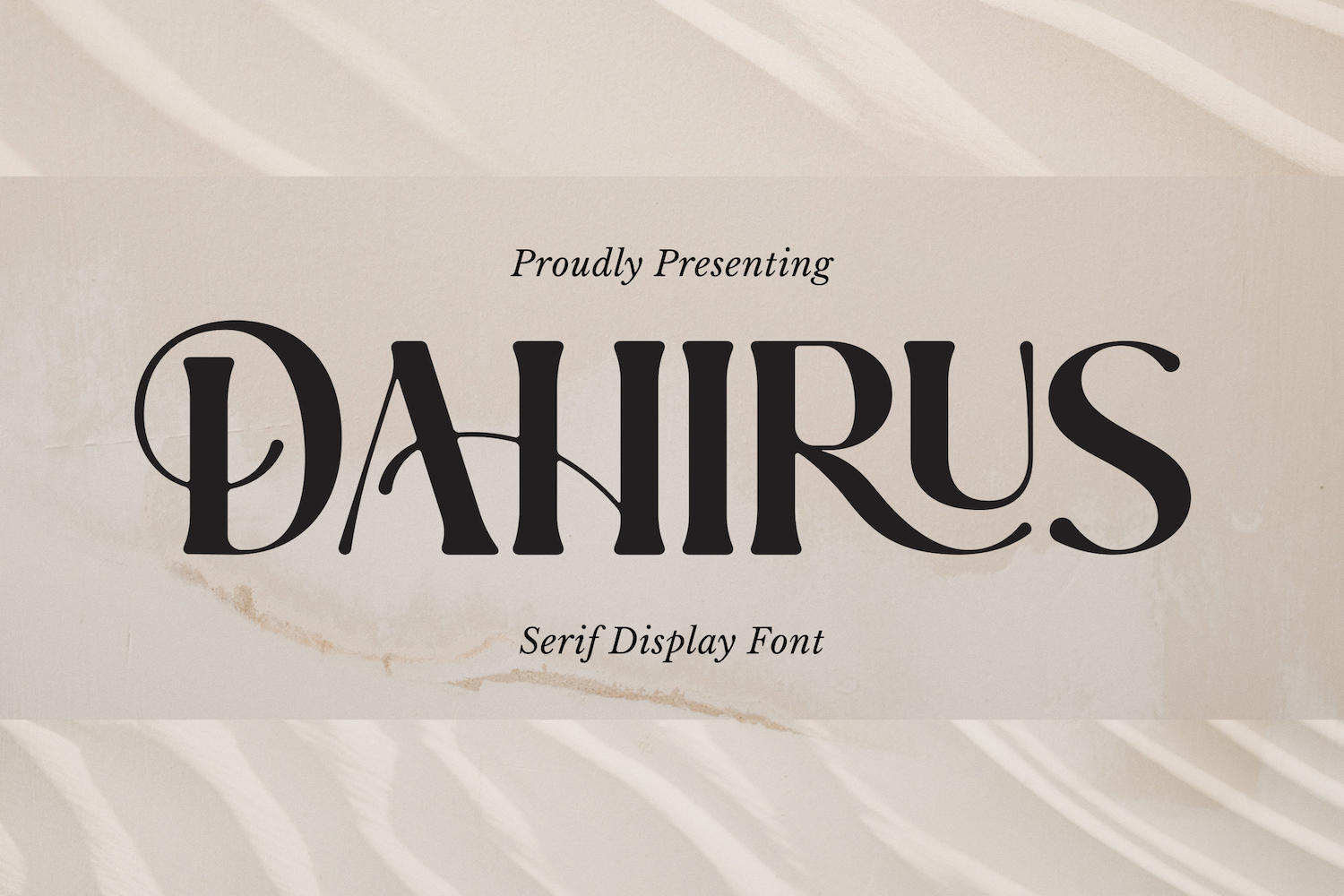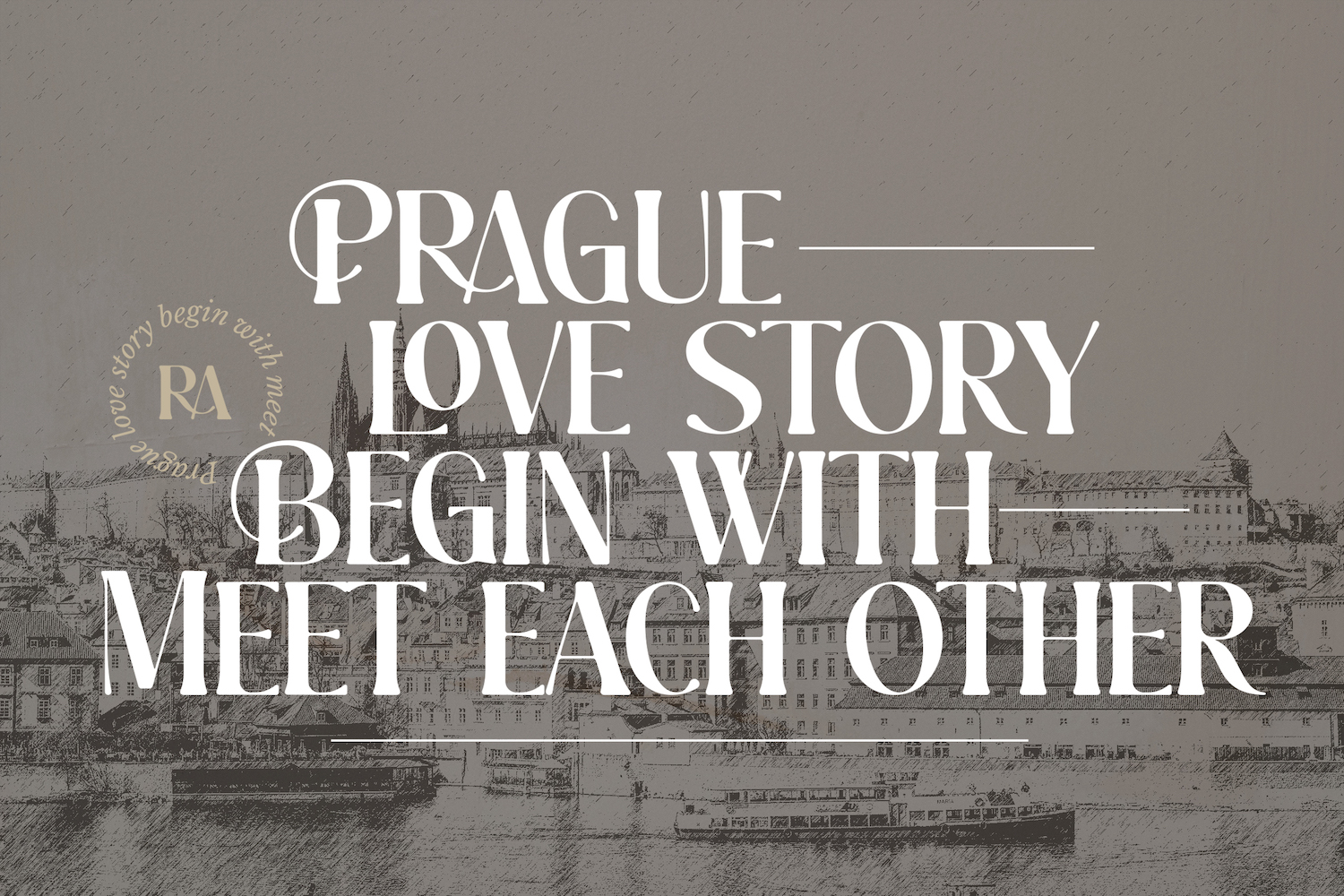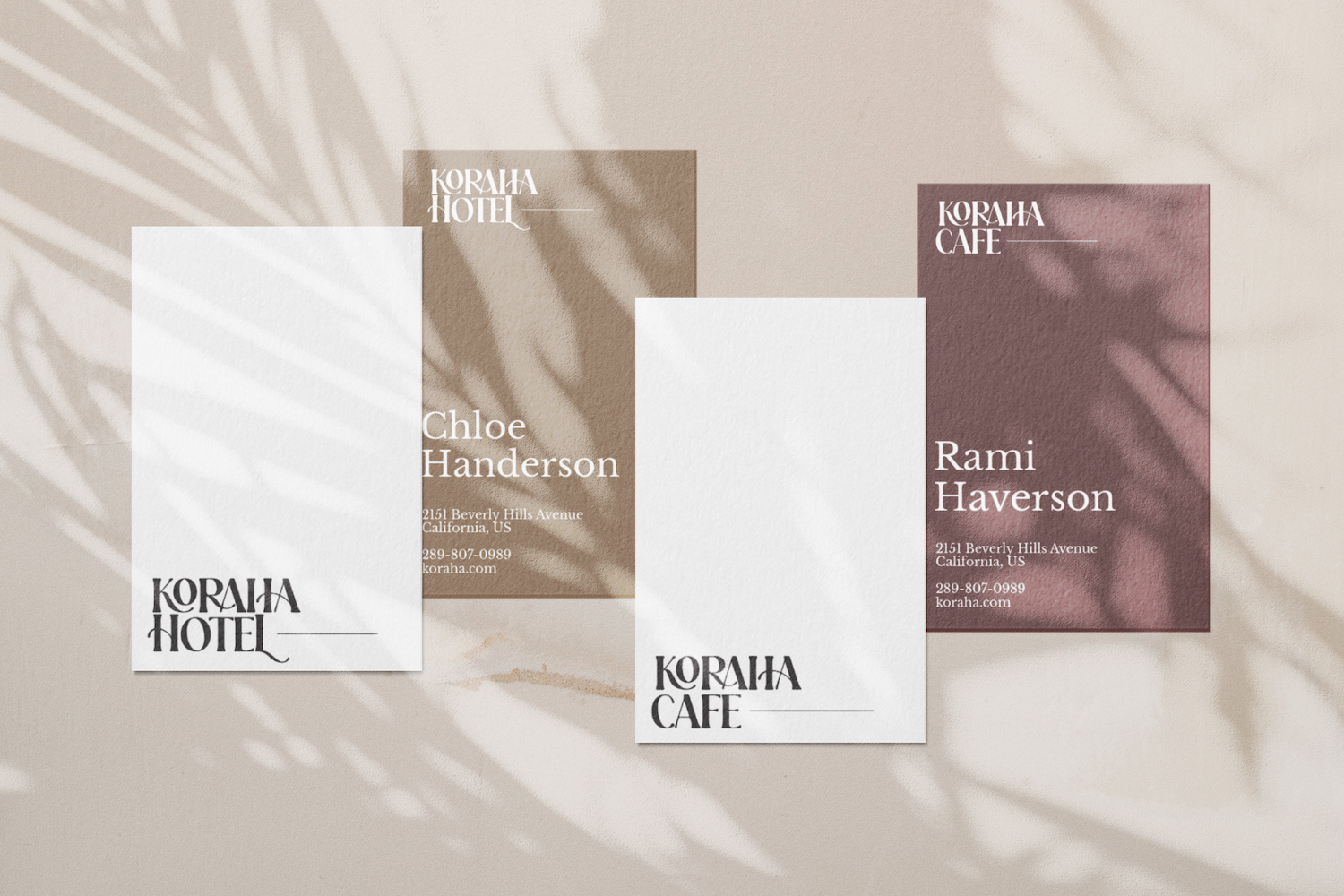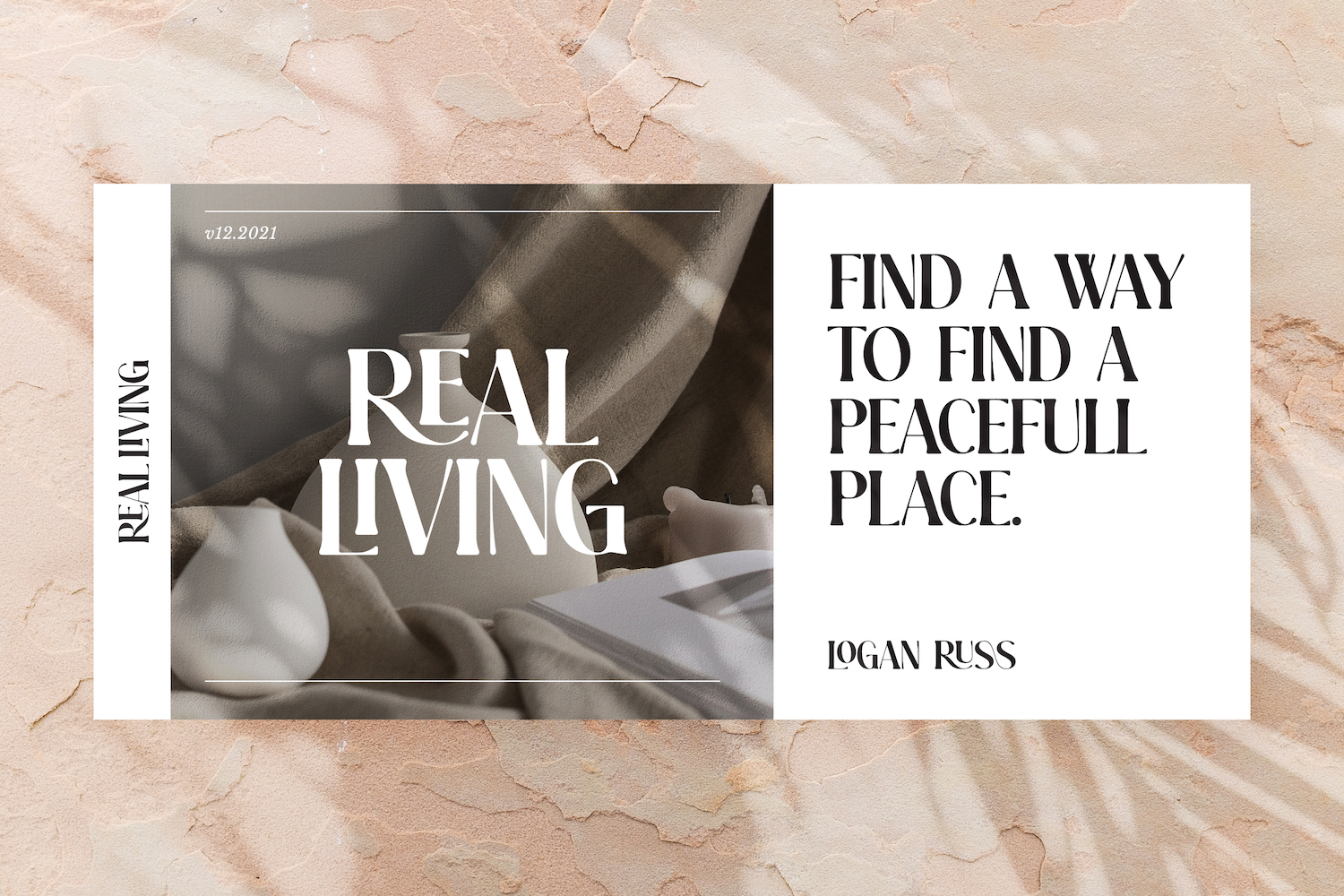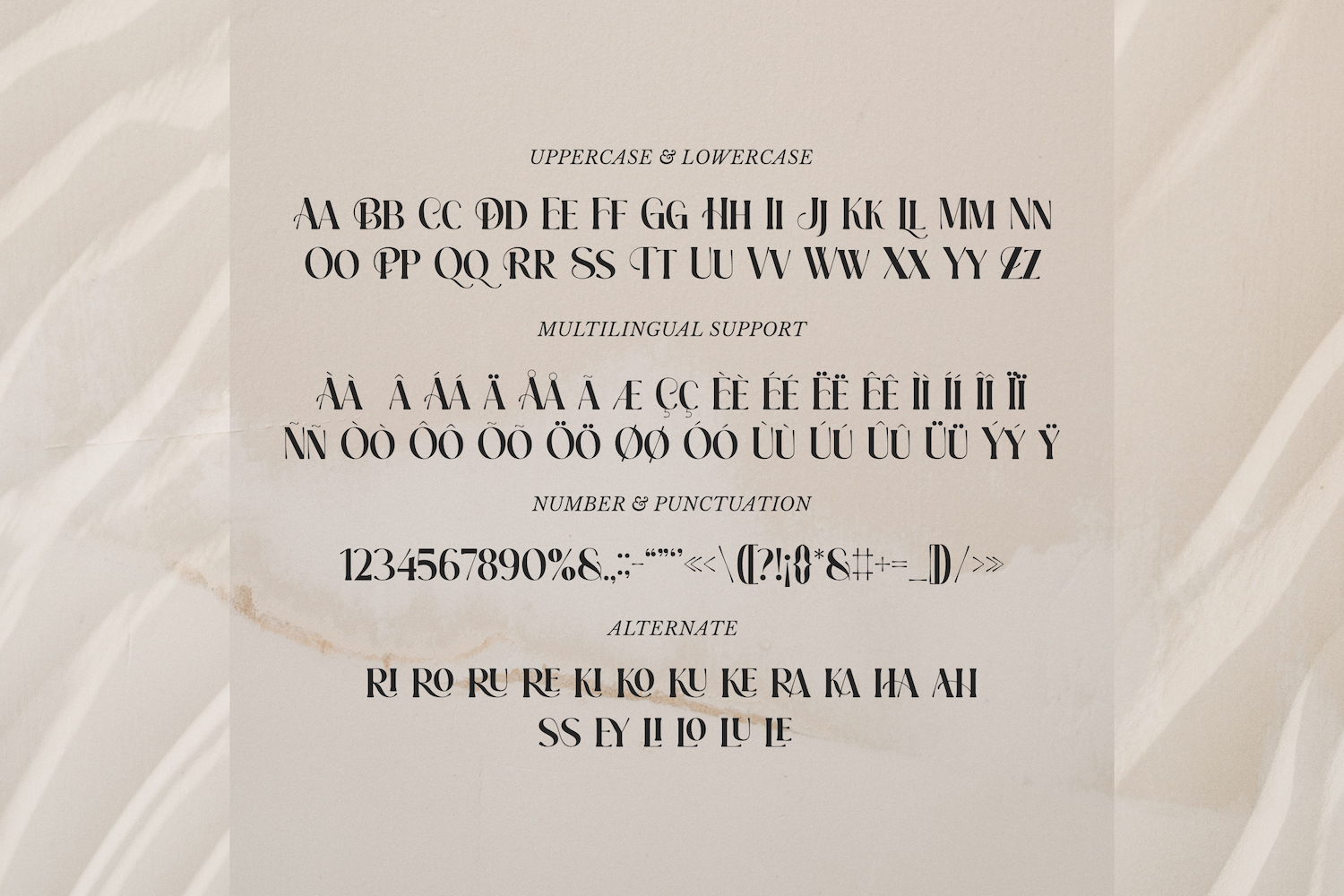
Dahirus is a sophisticated serif display font that blends classic elegance with expressive modern styling. With its unique ligatures, high contrast strokes, and ornamental touches, Dahirus brings an artistic personality that shines in both editorial design and branding. This font is perfect for designers seeking refinement and character in their typography work.
With multilingual support, alternate characters, and stylish uppercase forms. Dahirus provides versatility for a wide range of creative applications, from wedding invitations and magazine layouts to luxury branding and product packaging. Let Dahirus elevate your design with timeless charm and artistic flair.
Dahirus